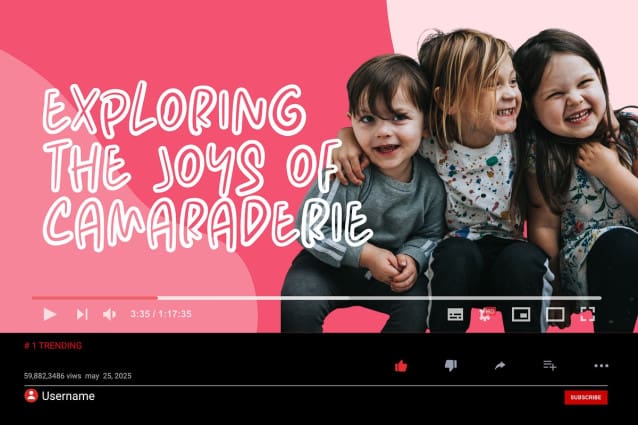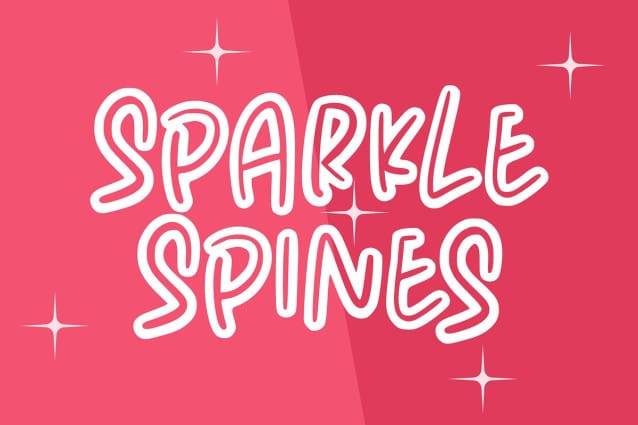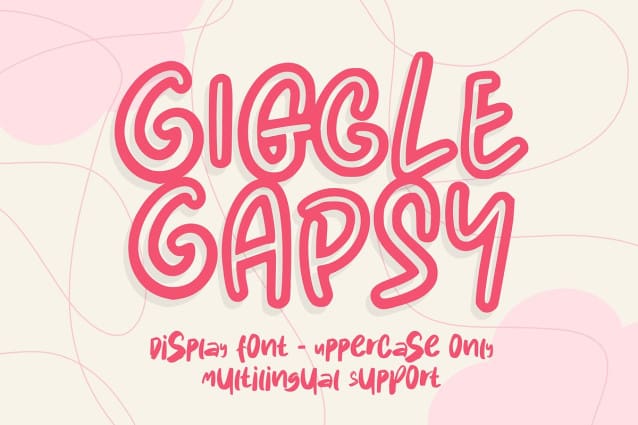
Giggle Gapsy Font
Giggle Gapsy Font, with a casual, outline style and a friendly approach, this font is perfect for adding a touch of fun to any project aimed at kids. The letters are designed with playful curves, giving the font a unique and cheerful look. Whether you’re creating a poster for a children’s birthday party, a logo for a toy brand, or anything in between, “Giggle Gapsy” is sure to bring a smile to your audience’s faces. So why wait? Start using this exciting new font today and see the difference it can make!